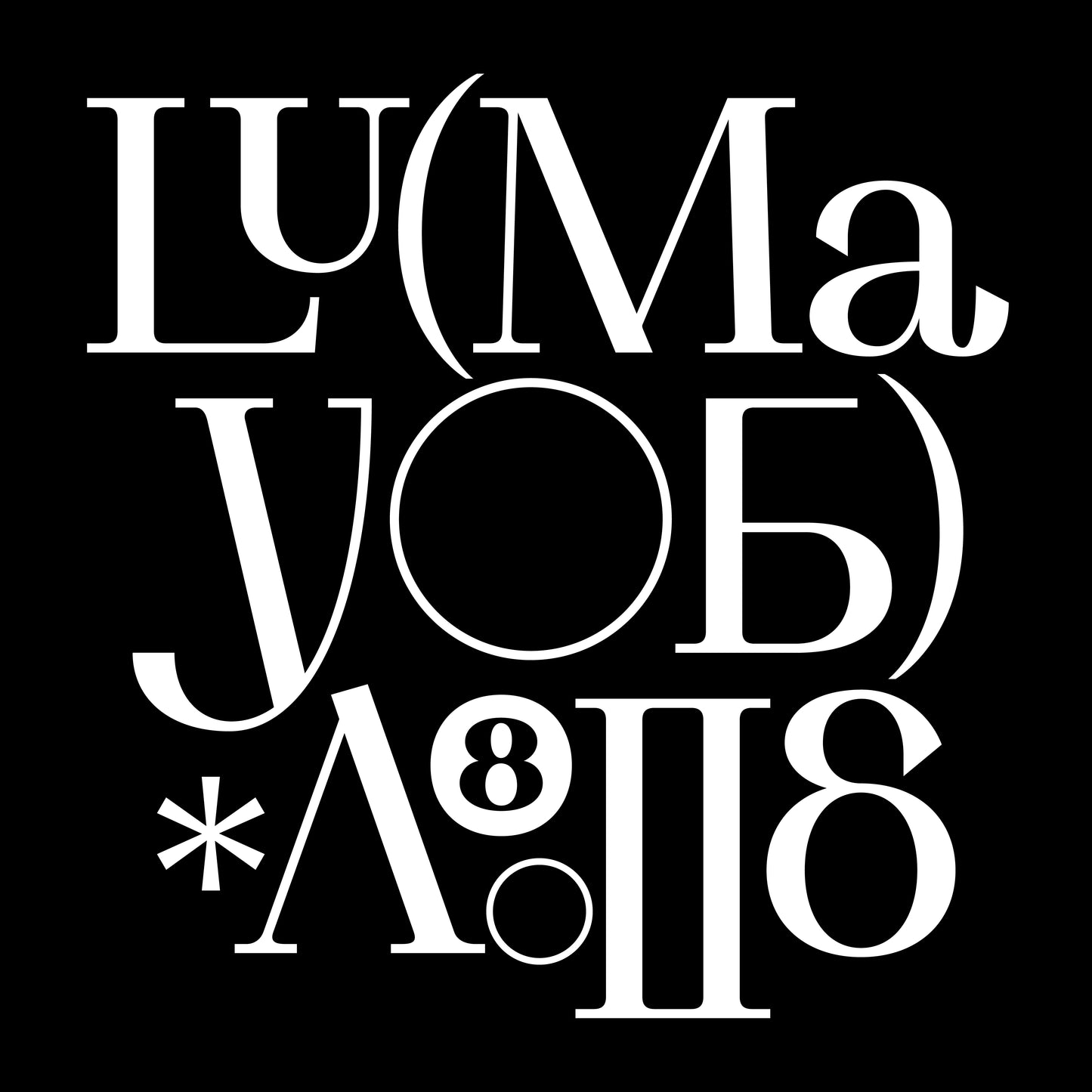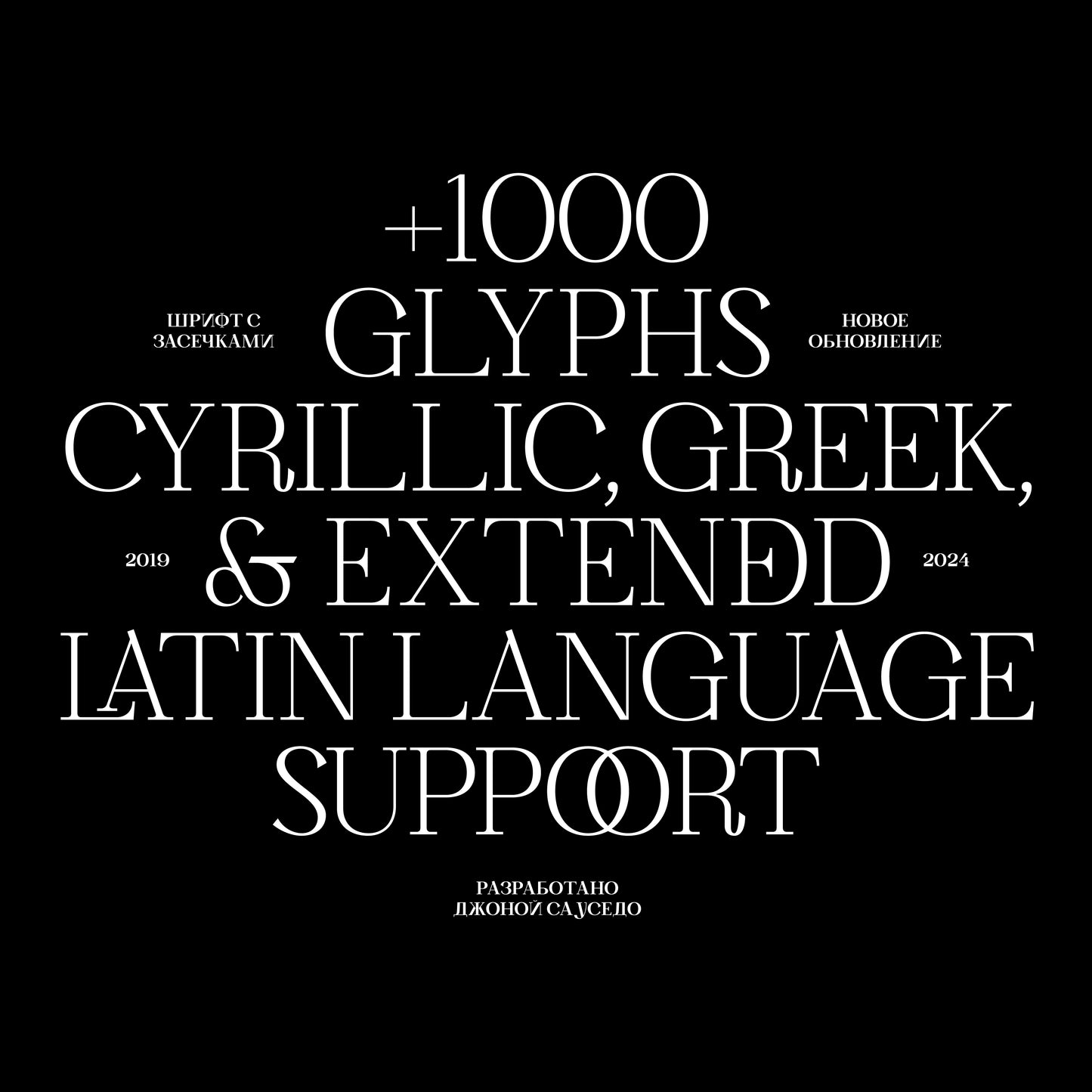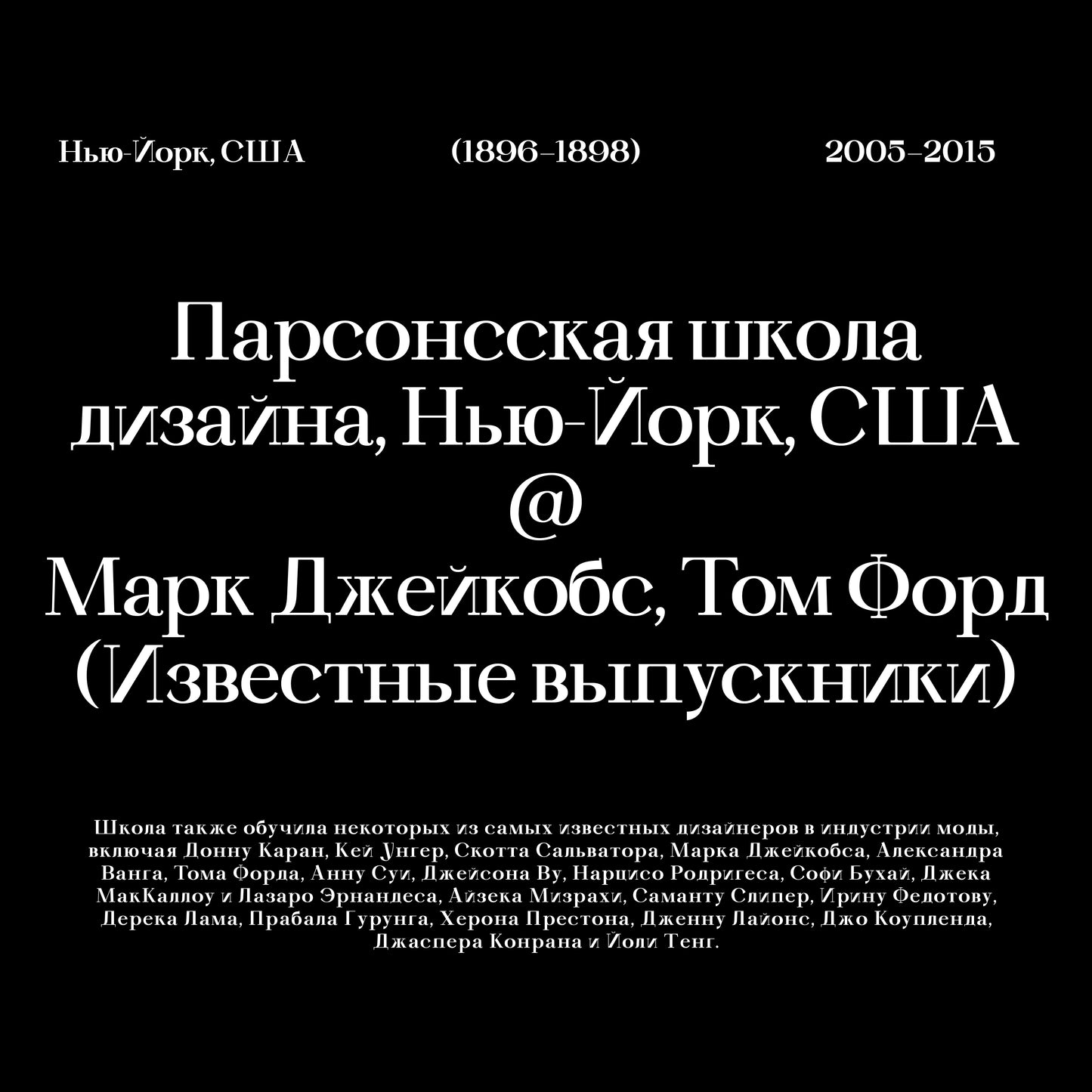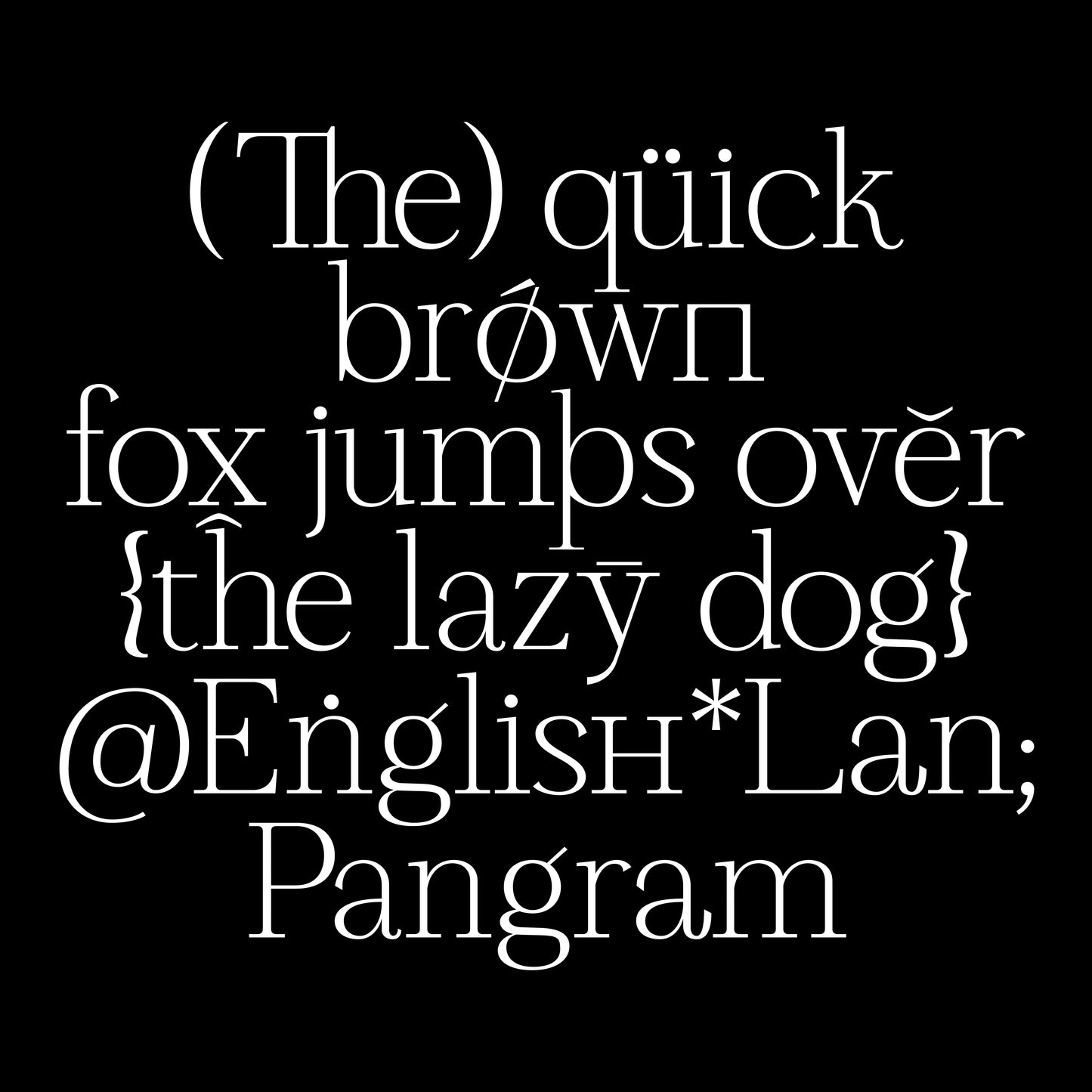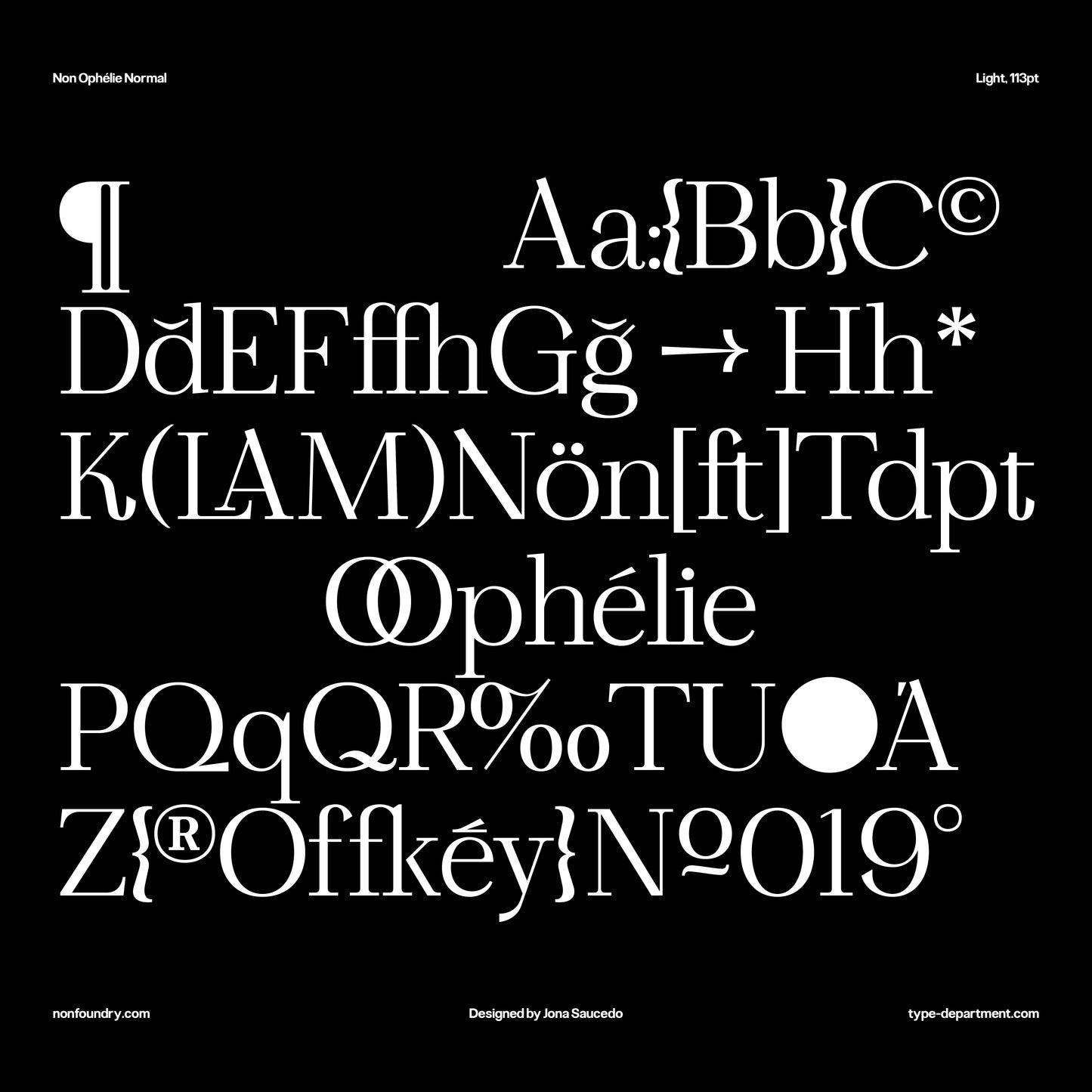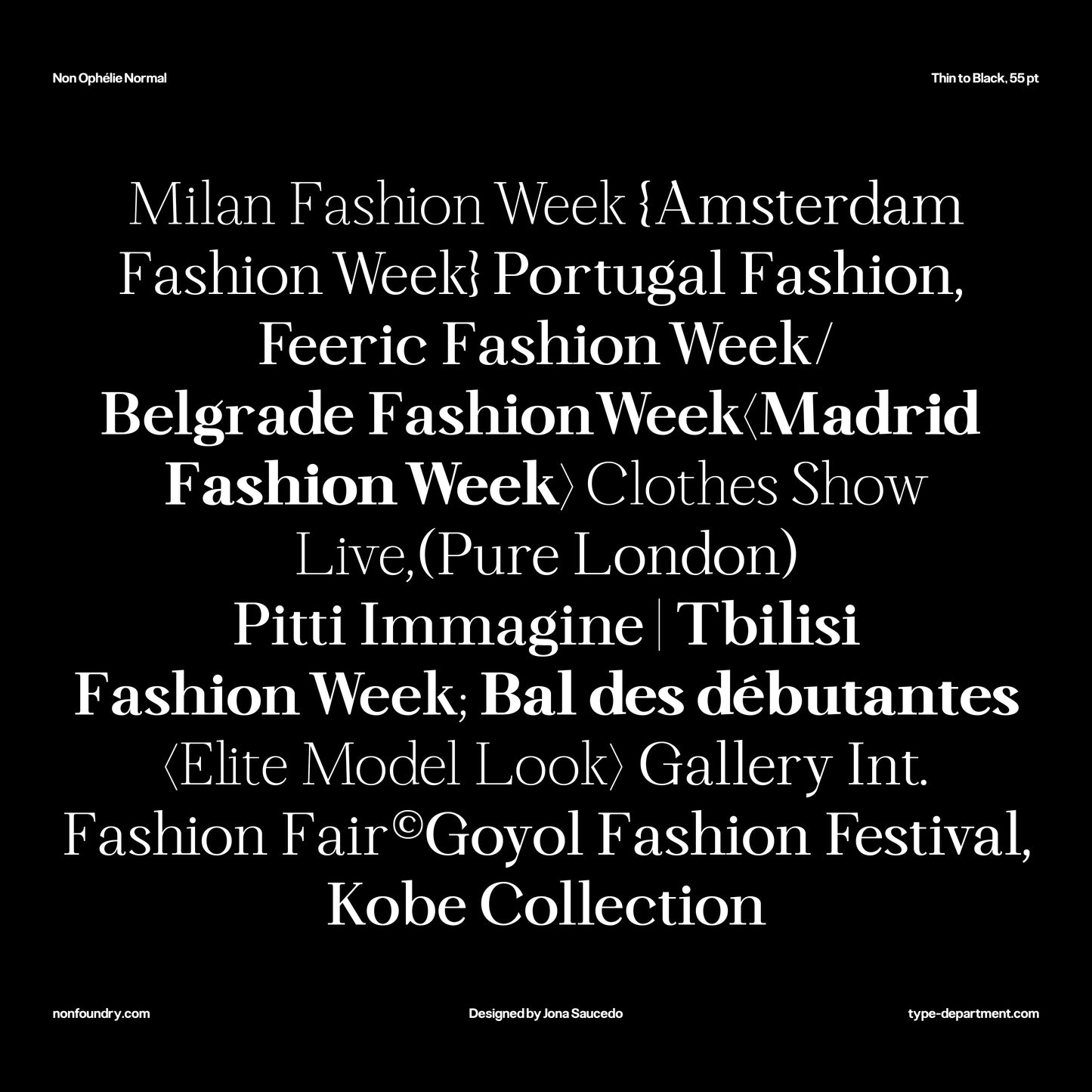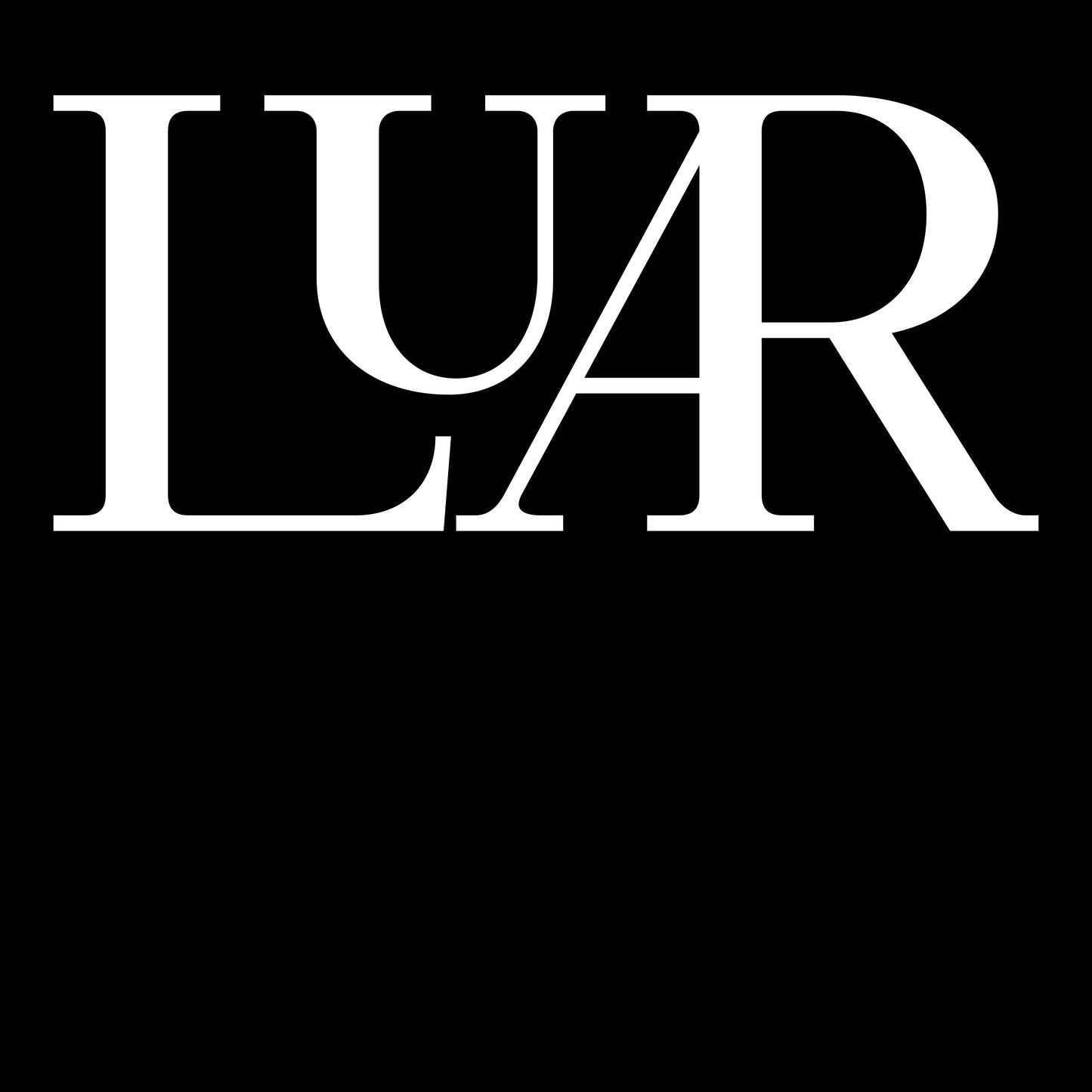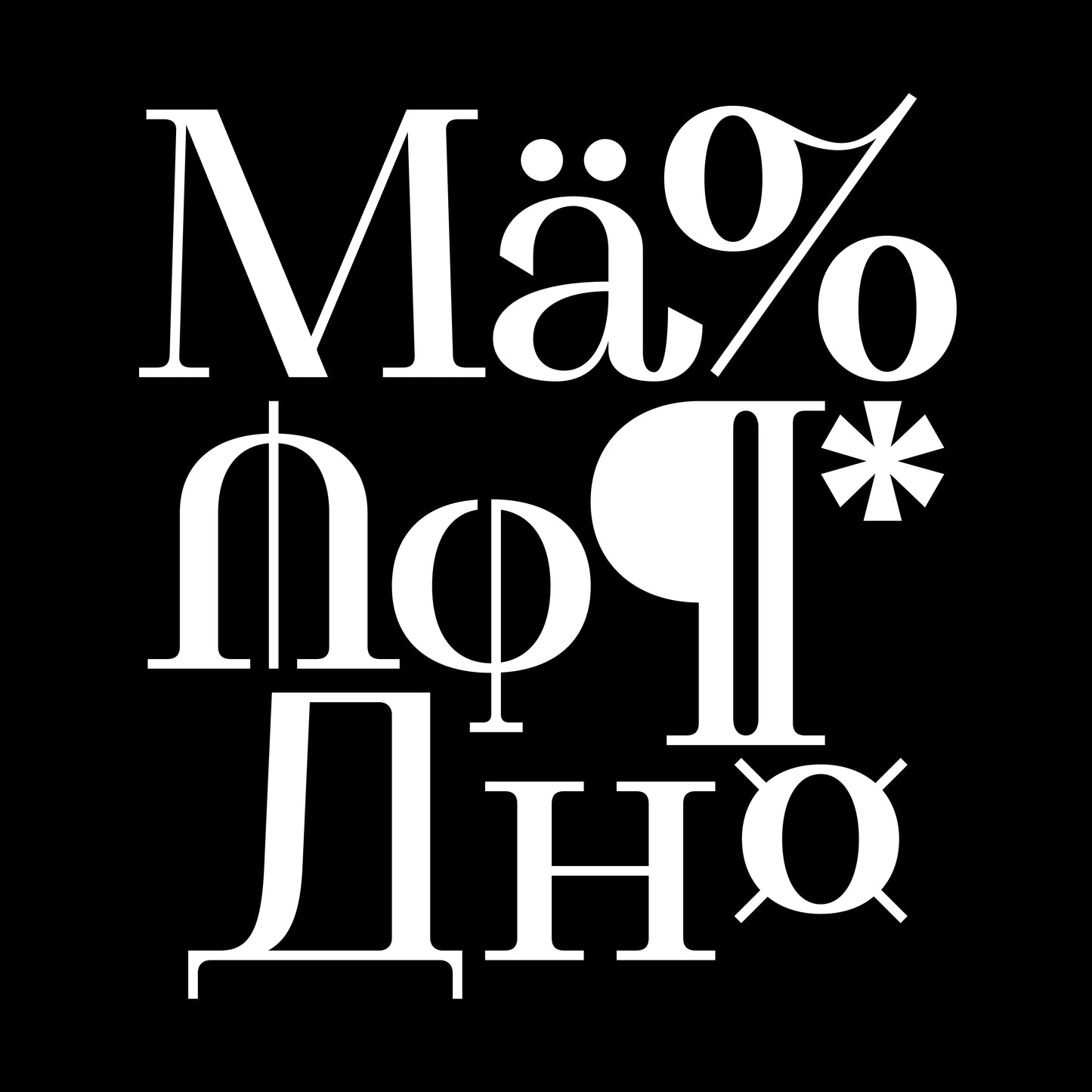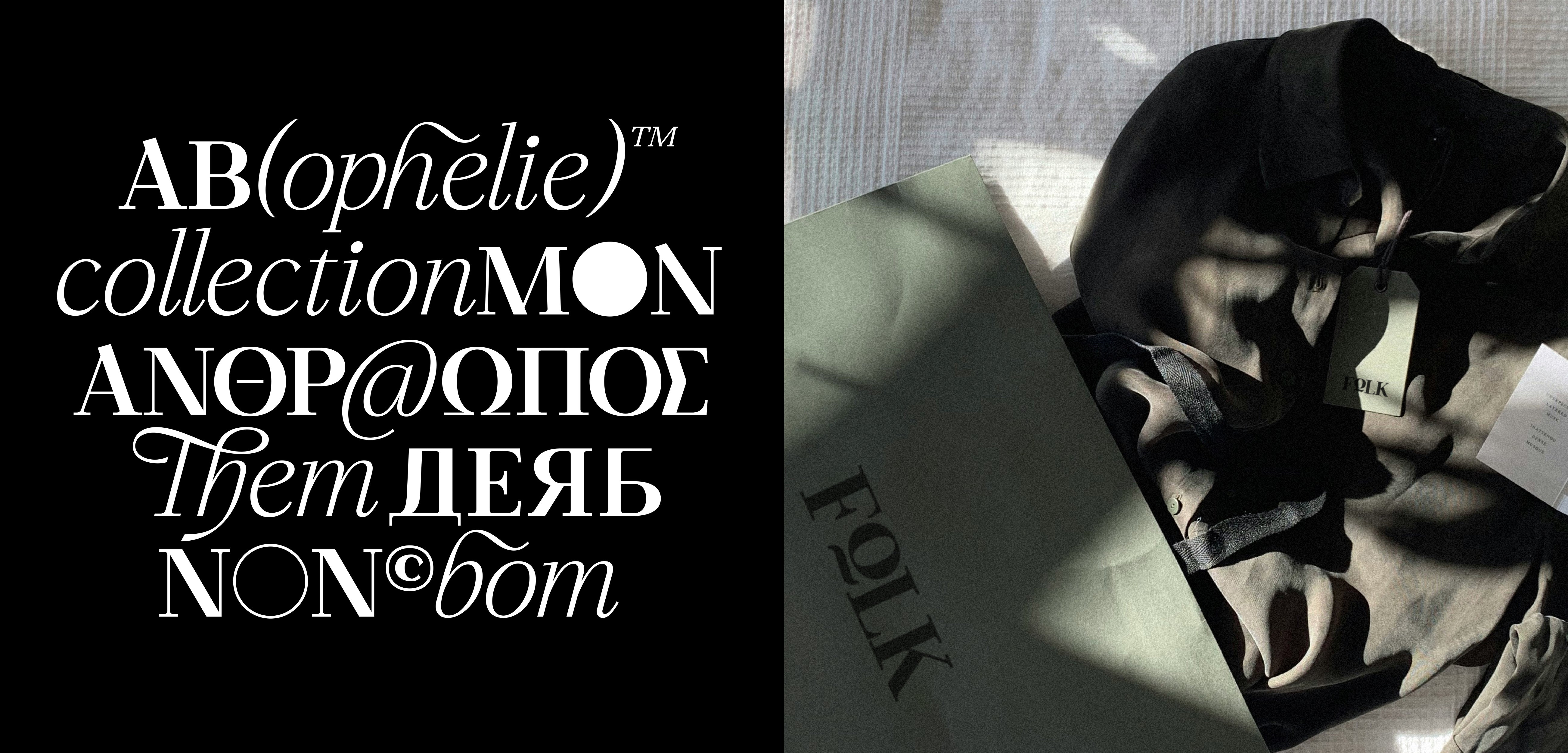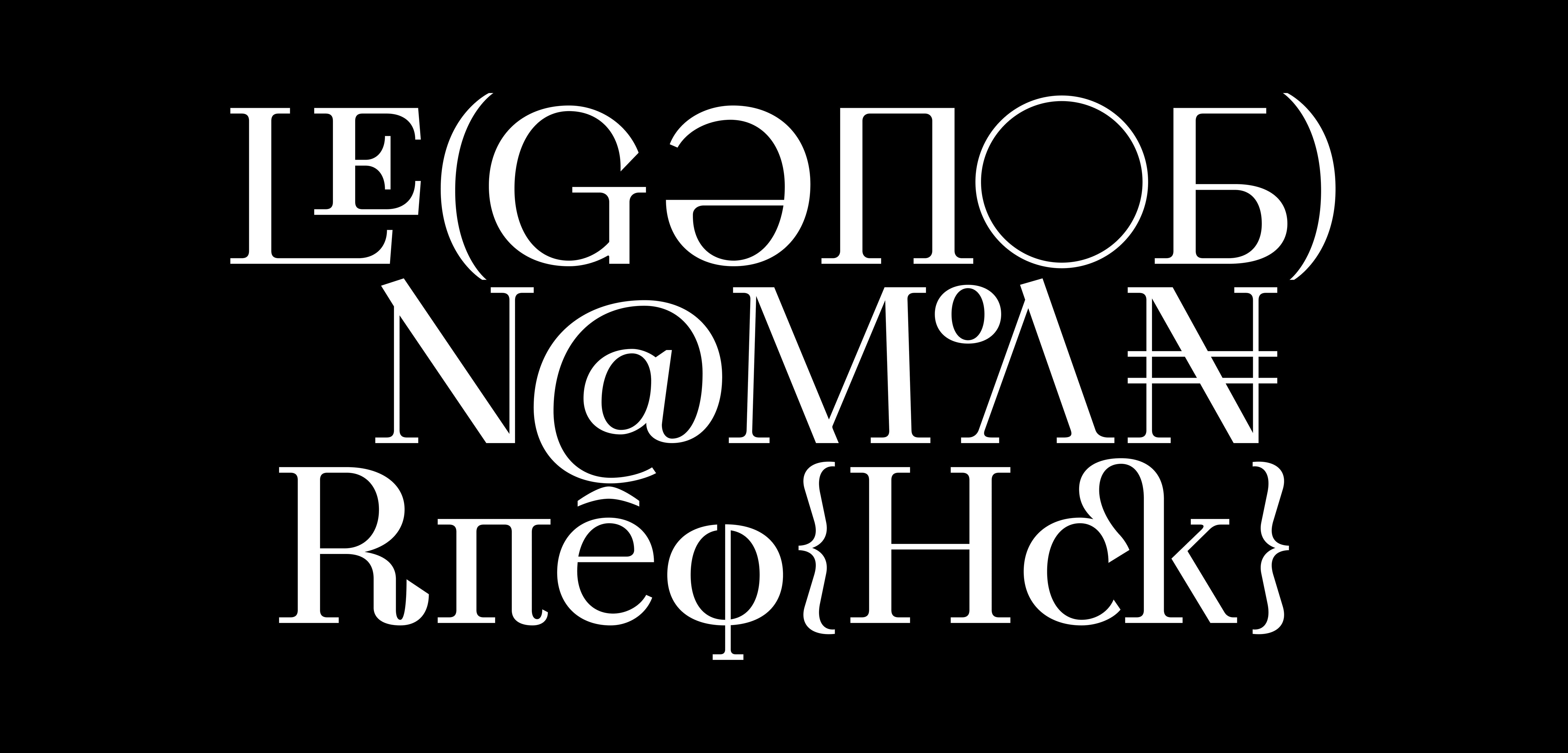
Non Ophelie
Non Foundry
Non Ophelie Display began with the lowercase "a," an expressive letter characterised by fluid curvature and rapid movement from its beginning to its pronounced tail. These features are reflected throughout the entire alphabet (now including Cyrillic and Greek), making them the defining characteristics of the typeface.
These details are also present in the uppercase glyphs, creating a consistent typographic system. Additionally, the high contrast between thin and thick sections, the terminal details, and its optimisation make Non Ophelie a typeface that performs best when used at large sizes.
—Total glyph set: 1030
— Ligatures
— Fractions
— Stylistic Alternates
—Currency Symbols
— Arrows